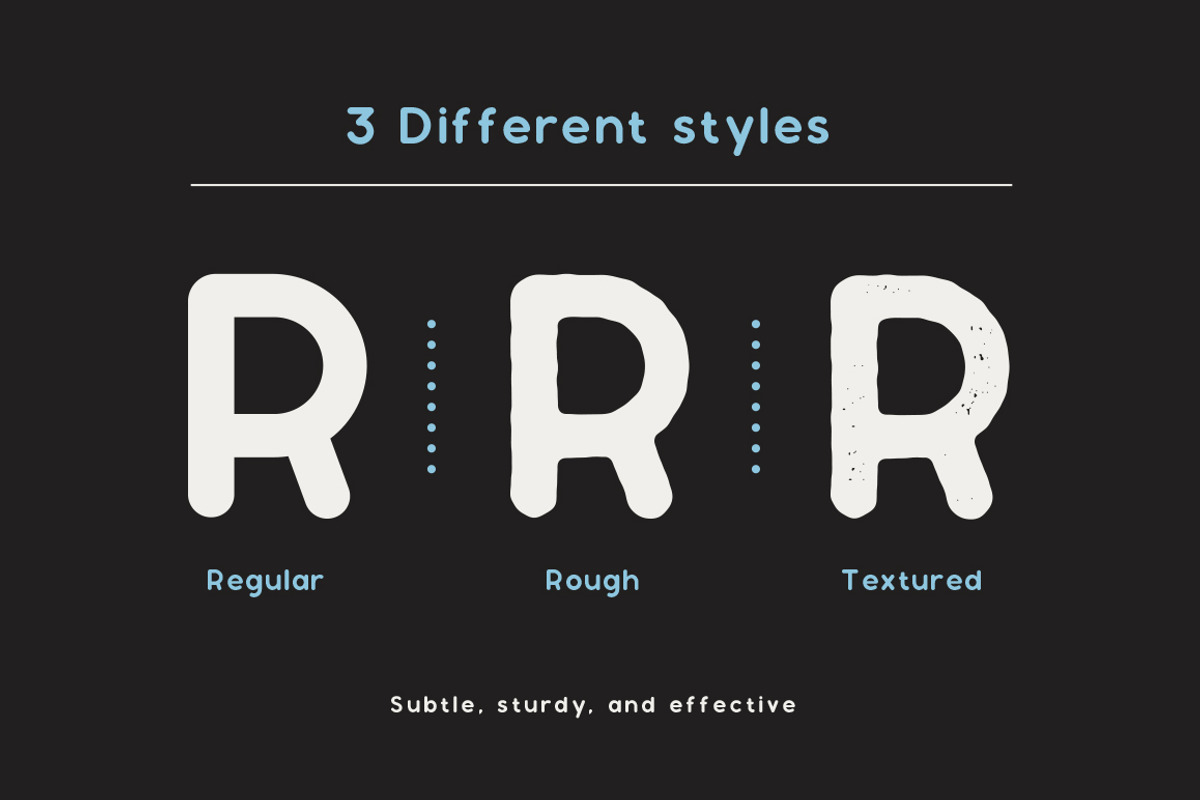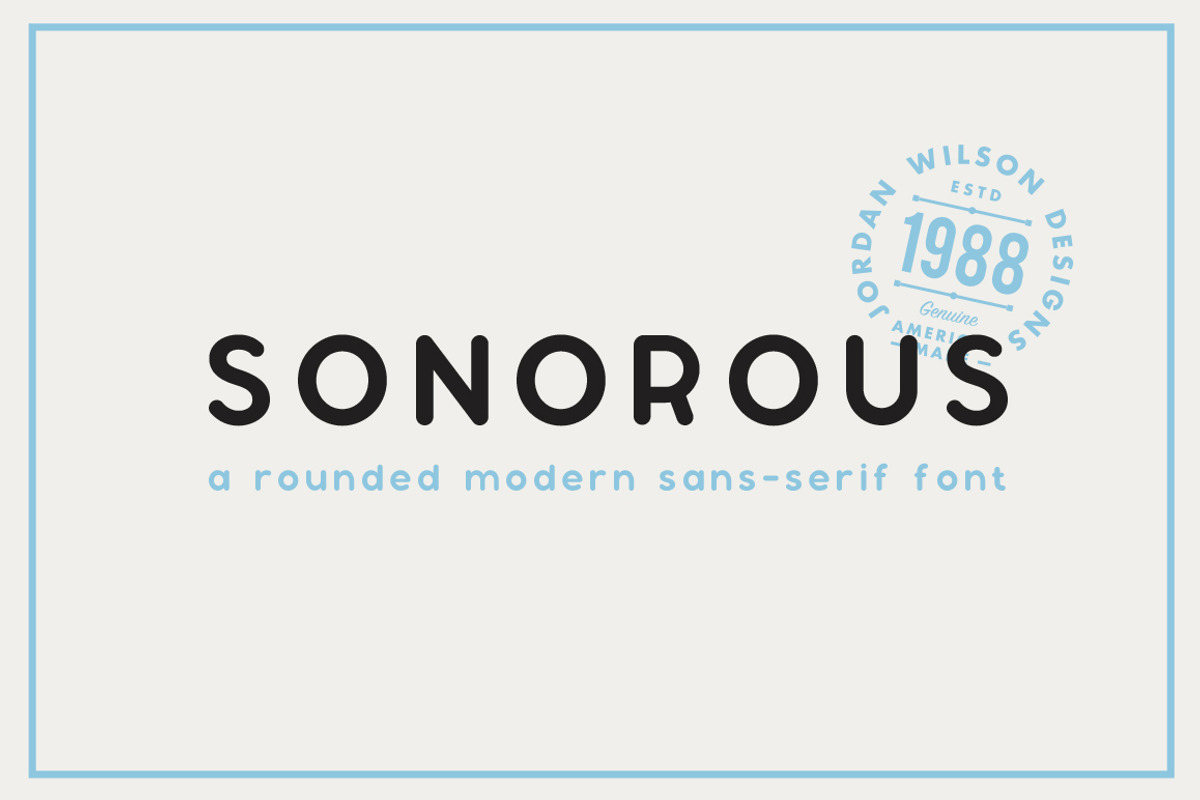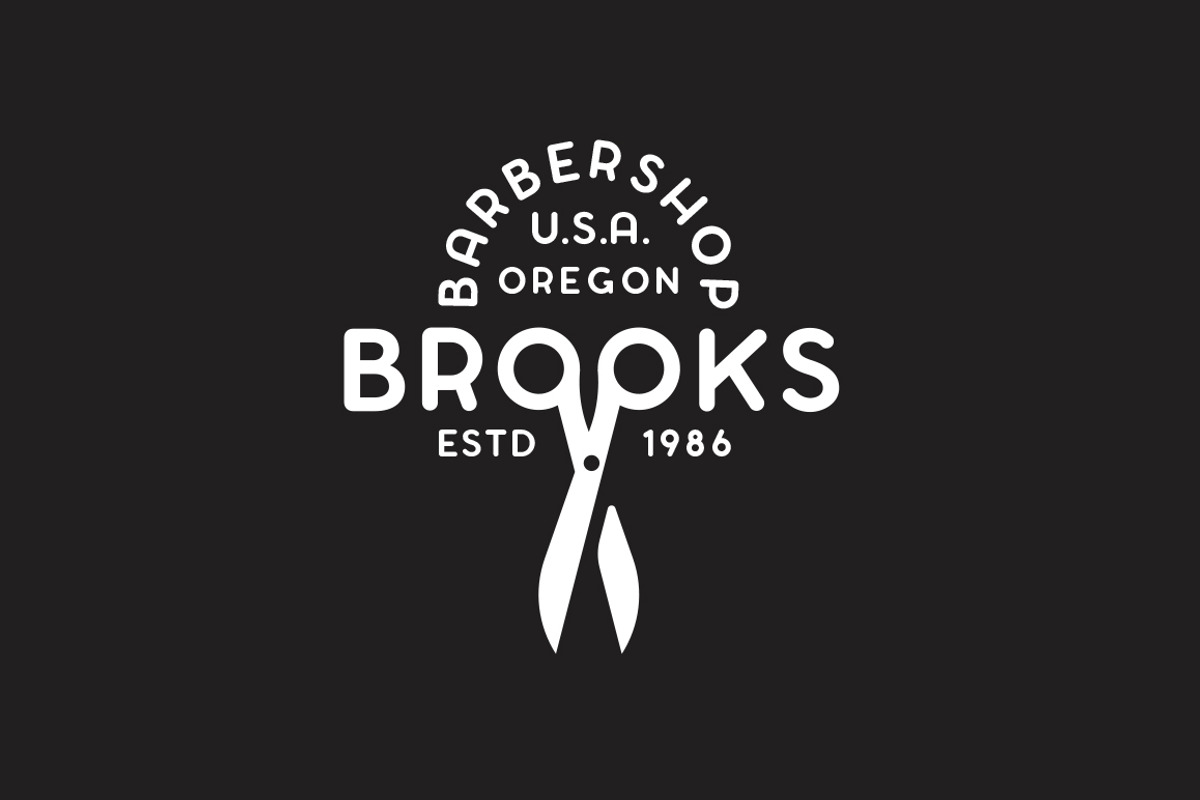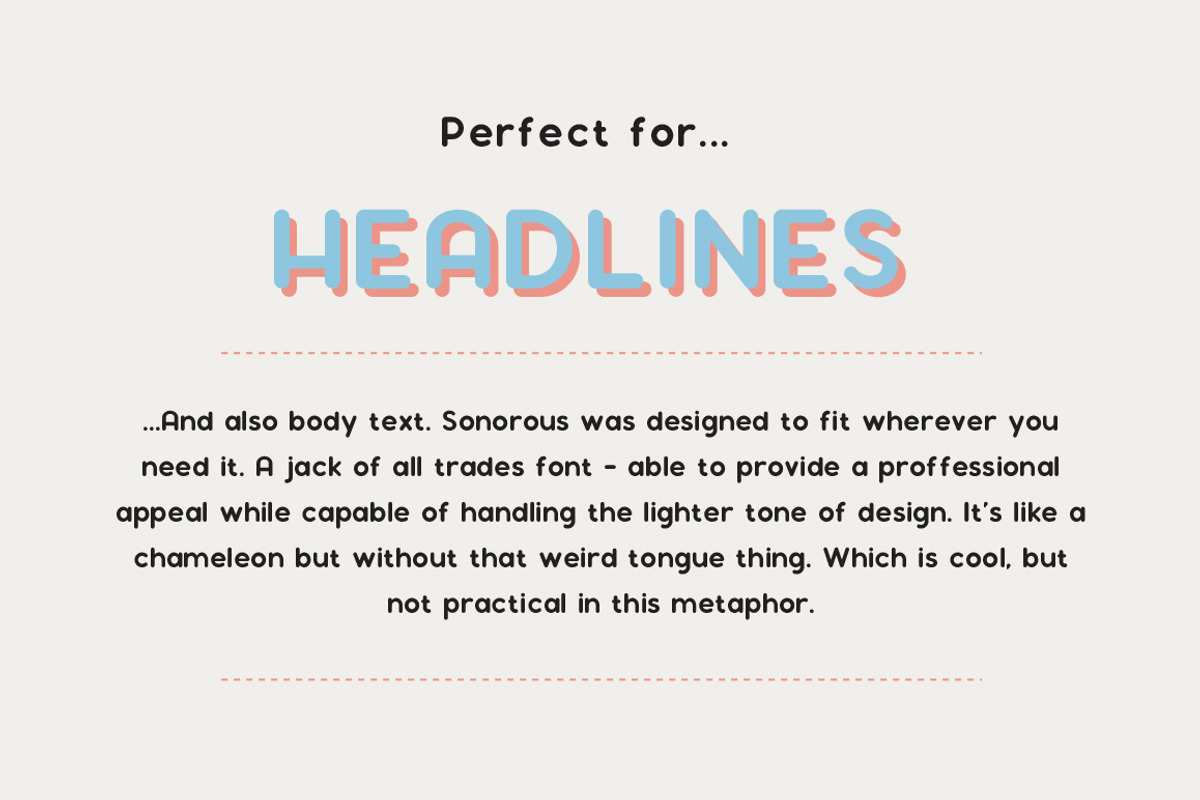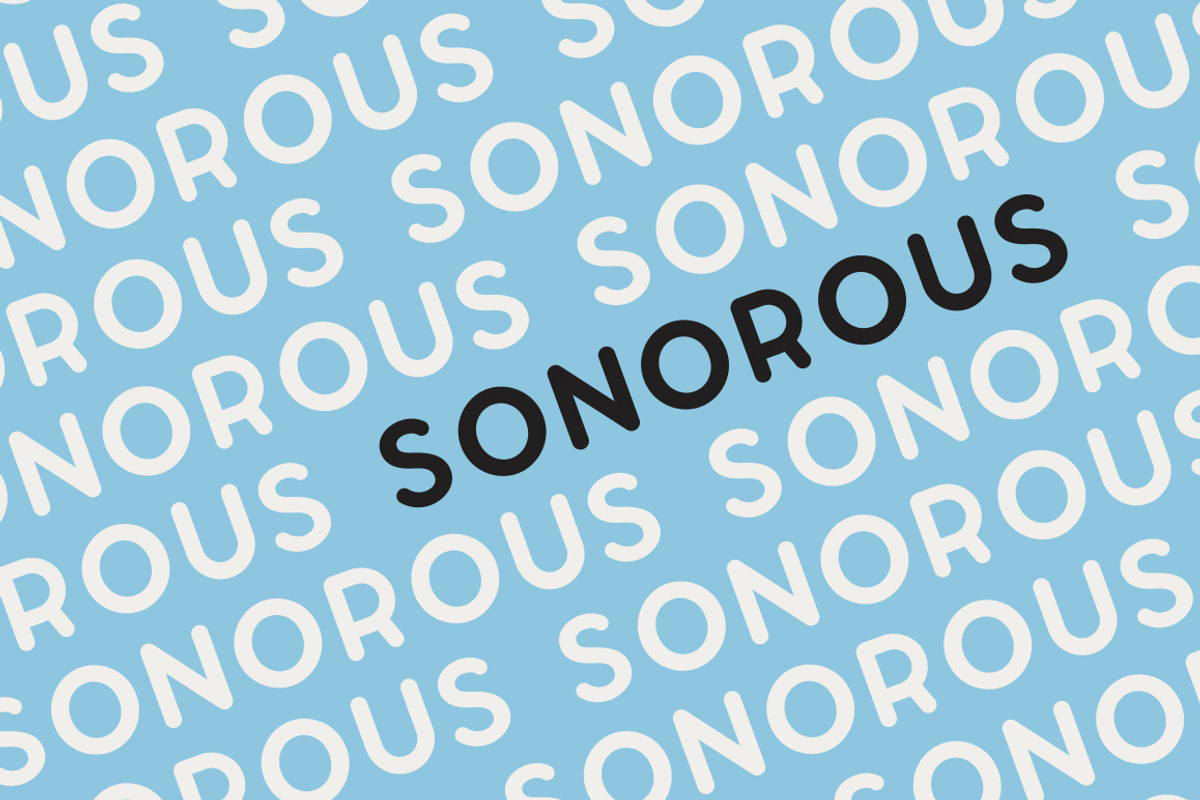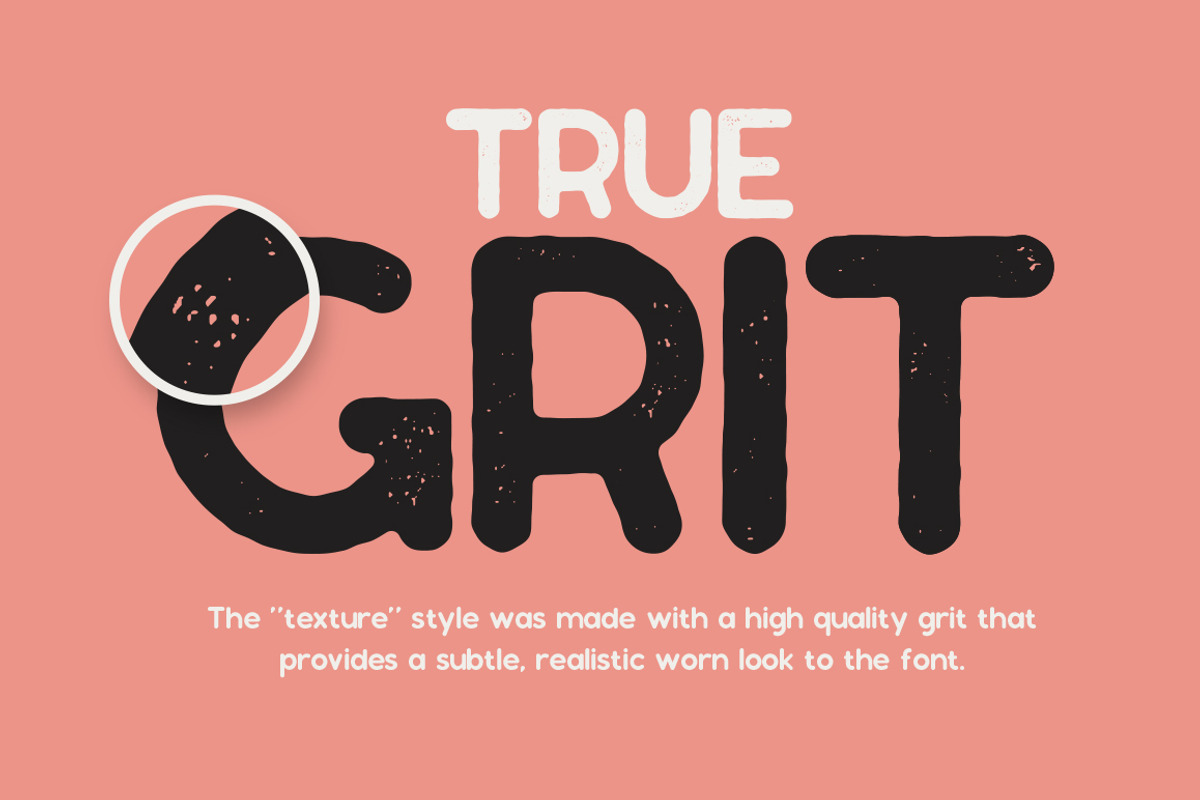
Sonorous Font
Meet Sonorous - Designed by Jordan Wilson
Round, clean, and balanced, Sonorous is an extremely adaptable font, perfect for adding a simple structured look and feel to your project. Sturdy, pragmatic uppercase and soft, open lowercase, work effectively on a vast number of applications. The rich monoline is built from perfect curvatures and minimal anchor points to ensure a clean high-quality form and cohesion throughout the font.
Full set of upper and lowercase letters, numerals, and large range of punctuation